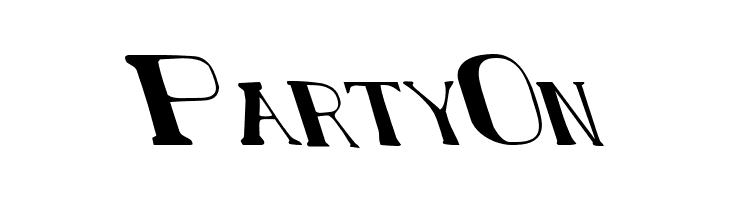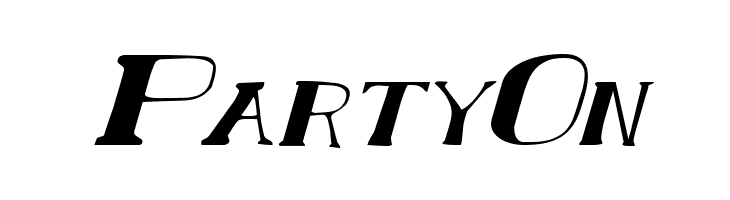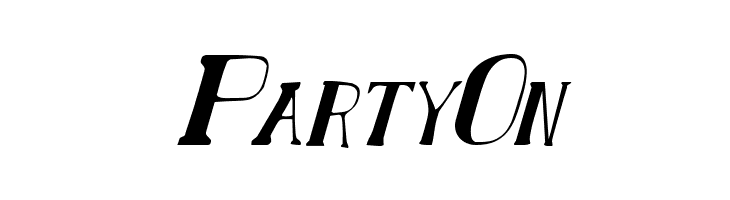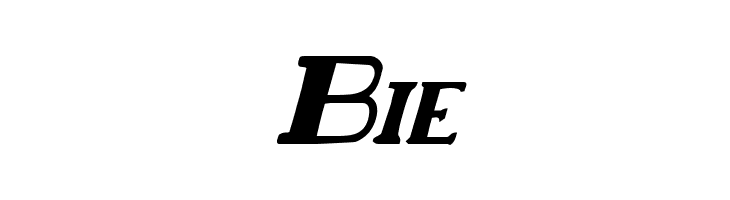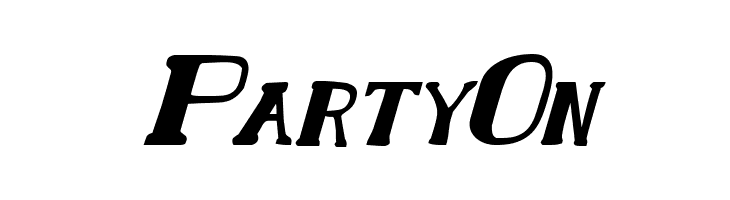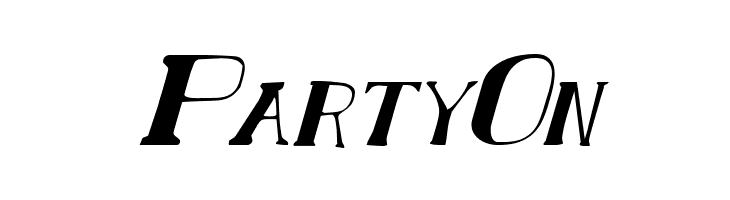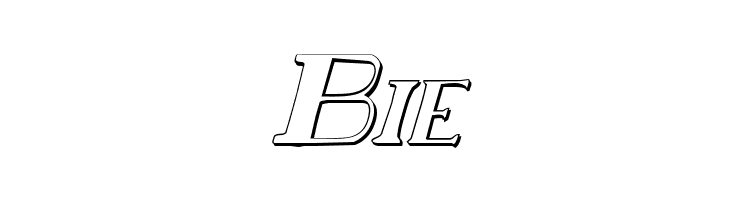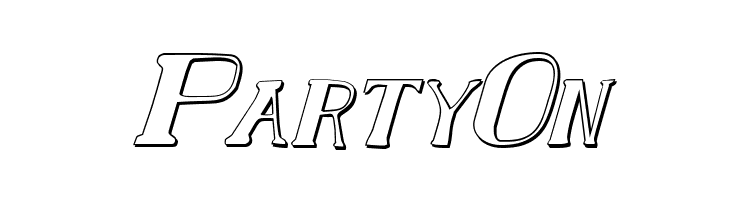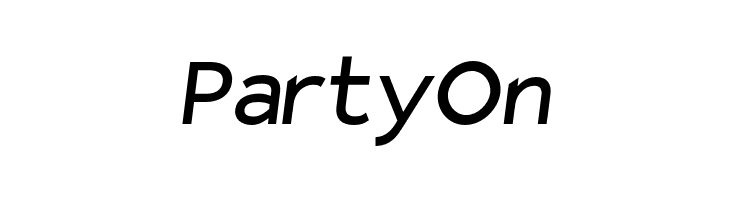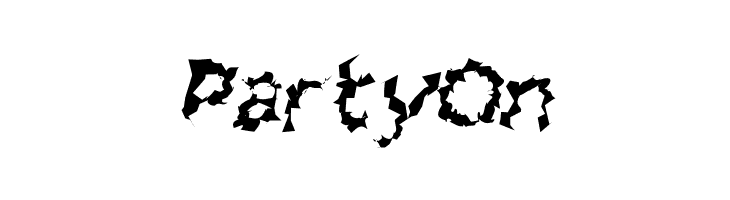
• Chapleau Italic
A dynamic, angular font with sharp, slanted strokes and high contrast.
• Chardin Doihle Bold Italic
A bold, italicized font with a dynamic and robust style.
• Chardin Doihle Condensed Italic
A sleek, italic, and condensed font with bold strokes and a modern style.
• Chardin Doihle Expanded Italic
A dynamic, expanded italic font with bold strokes and moderate contrast.
• Chardin Doihle Italic
A dynamic and elegant italic font with moderate contrast and a stylish appearance.
• Chardin Doihle Leftalic
A bold, left-slanted font with high contrast and distinctive serifs.
• Chardin Doihle Shadow Italic
A shadowed, italicized font with a three-dimensional effect.
• Charger Bold Italic
• Charger Distortion 1 Italic
A dynamic, italic font with a modern, distorted style.
• Charger Distortion 2 Italic
A bold, jagged font with a chaotic, shattered appearance.